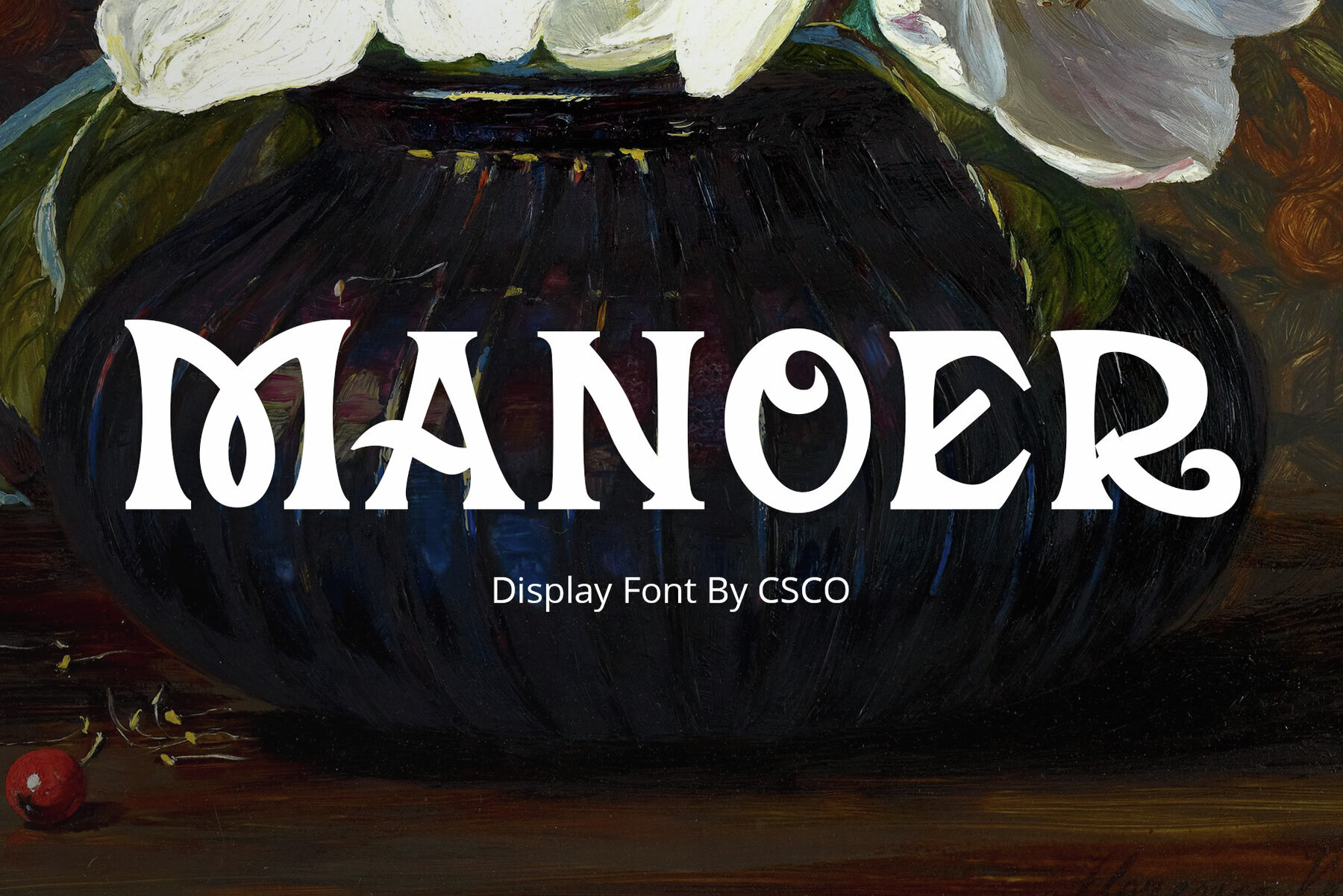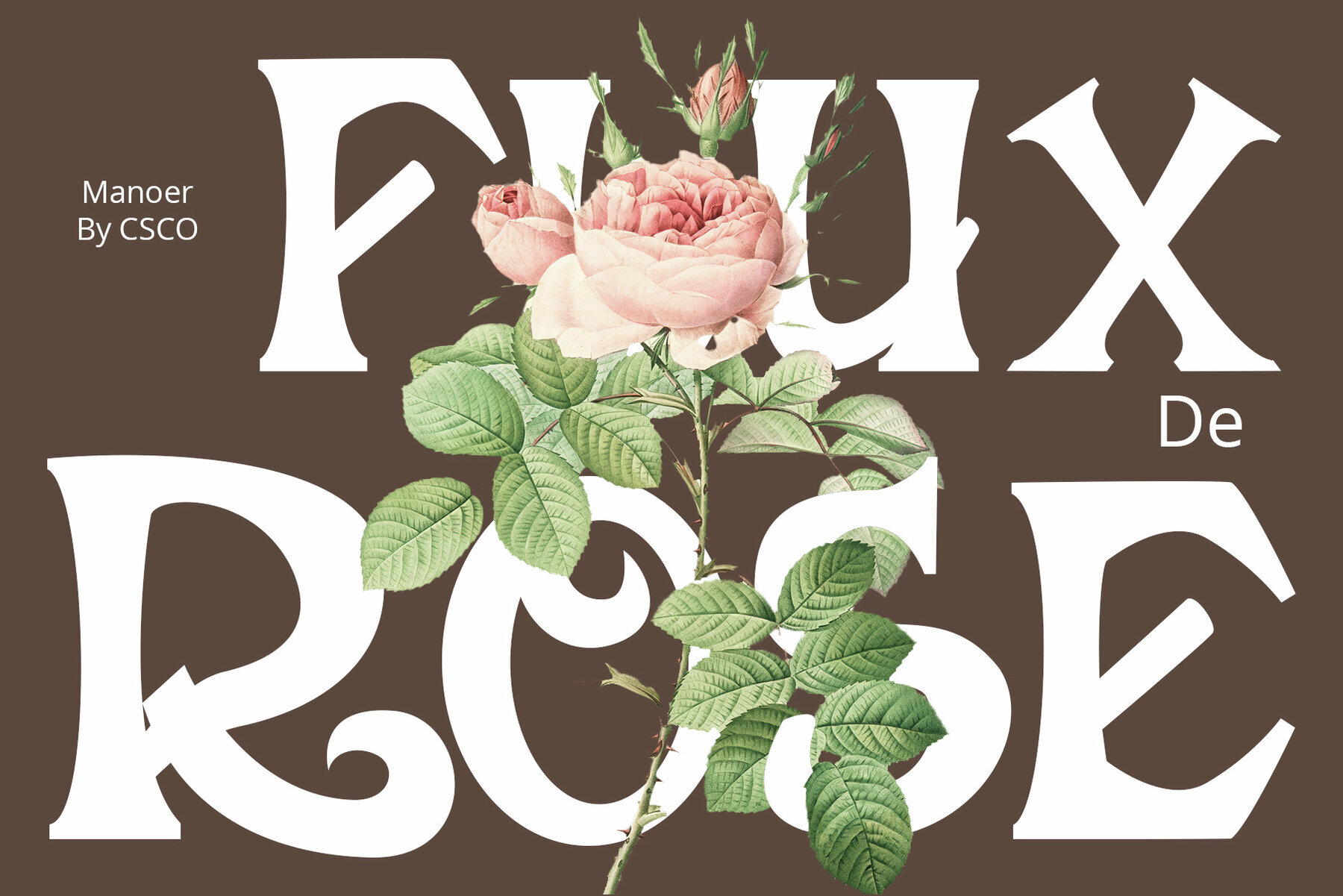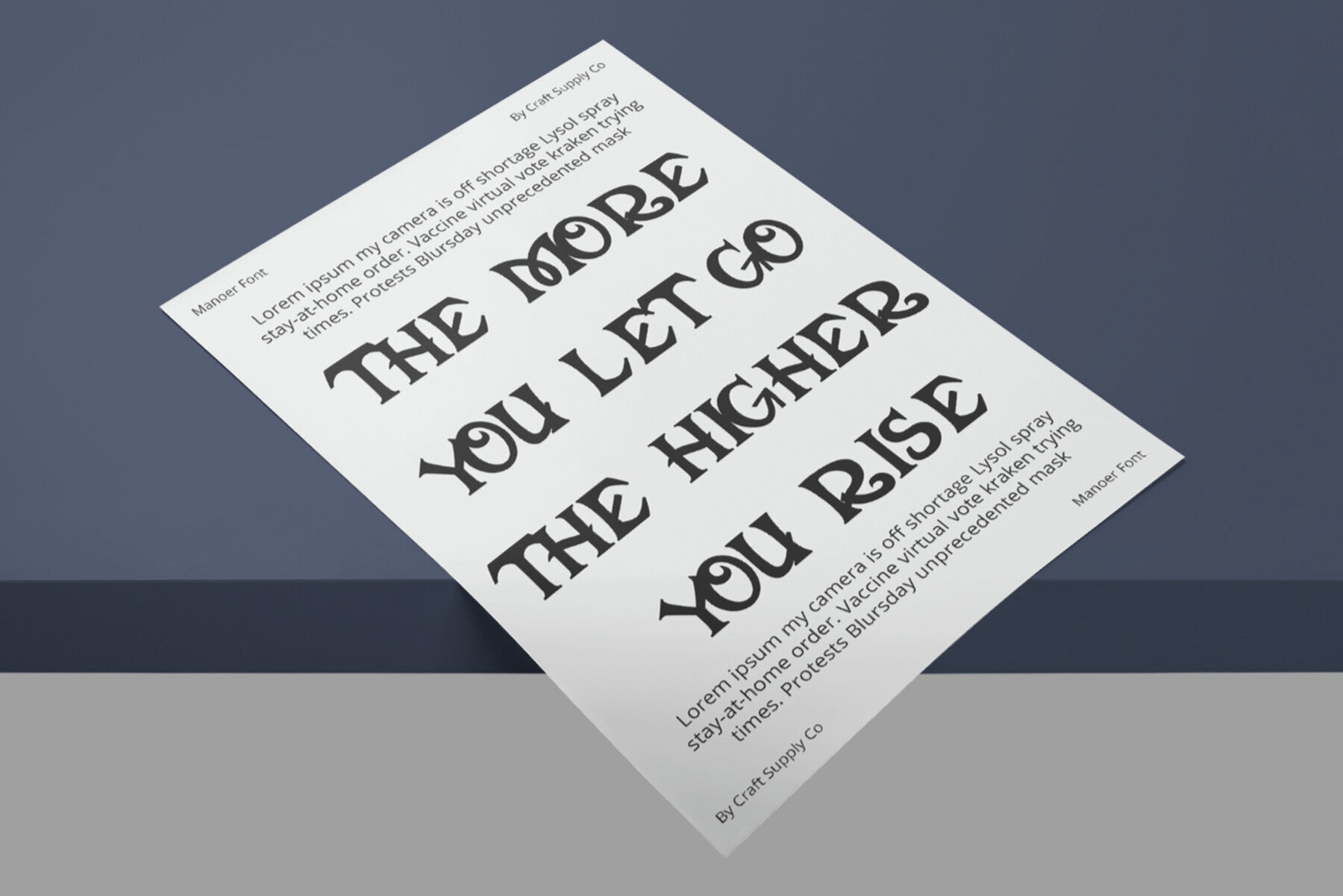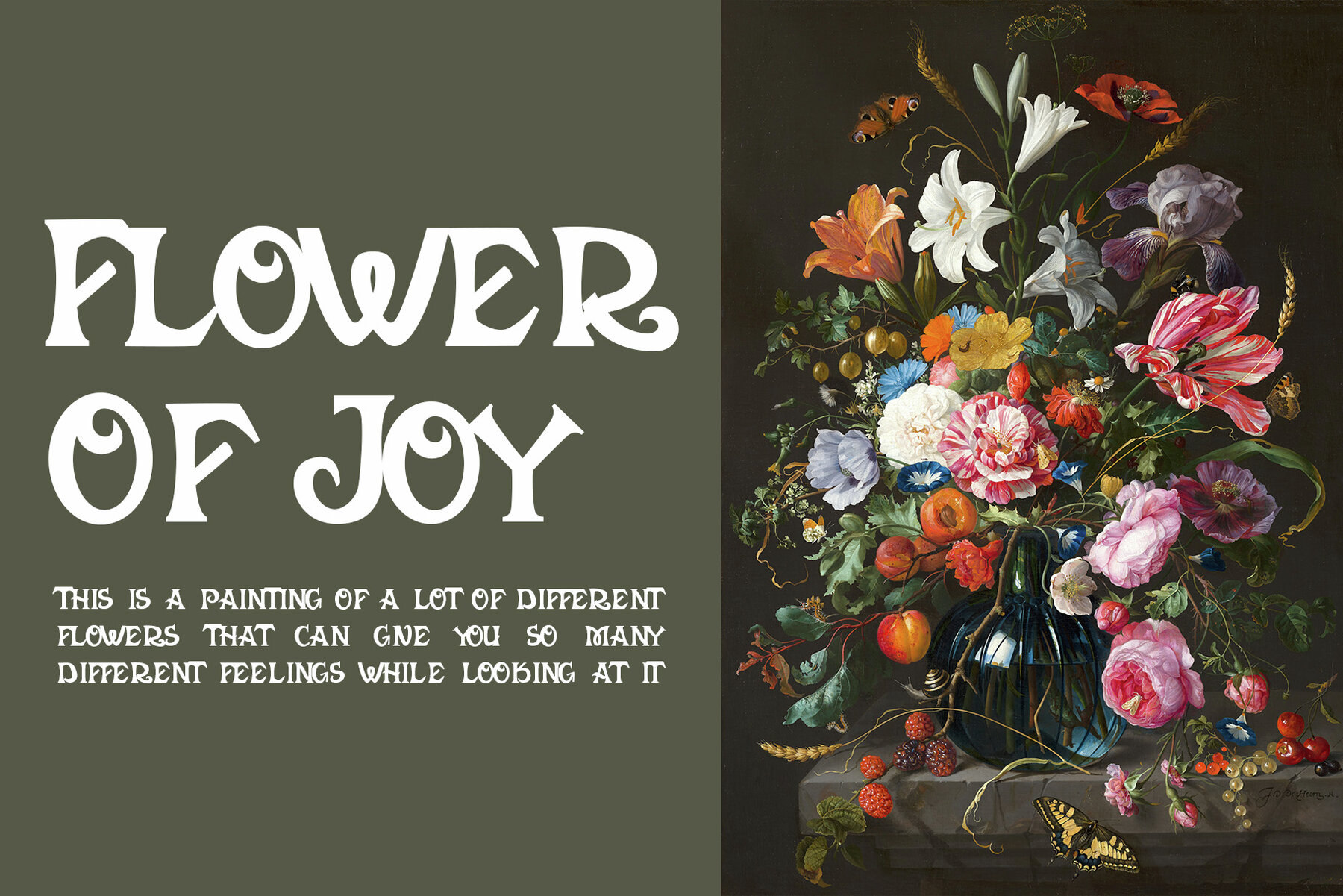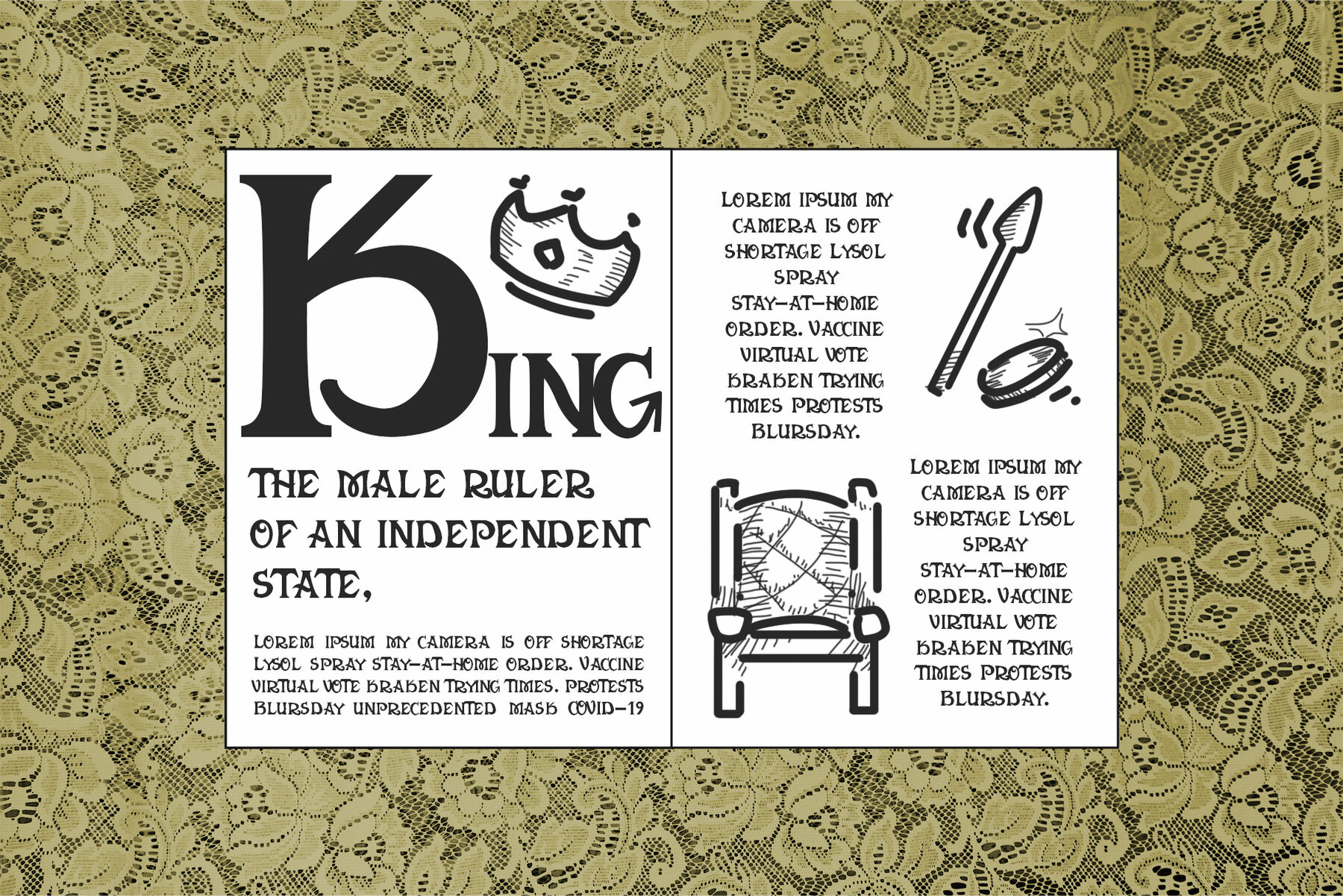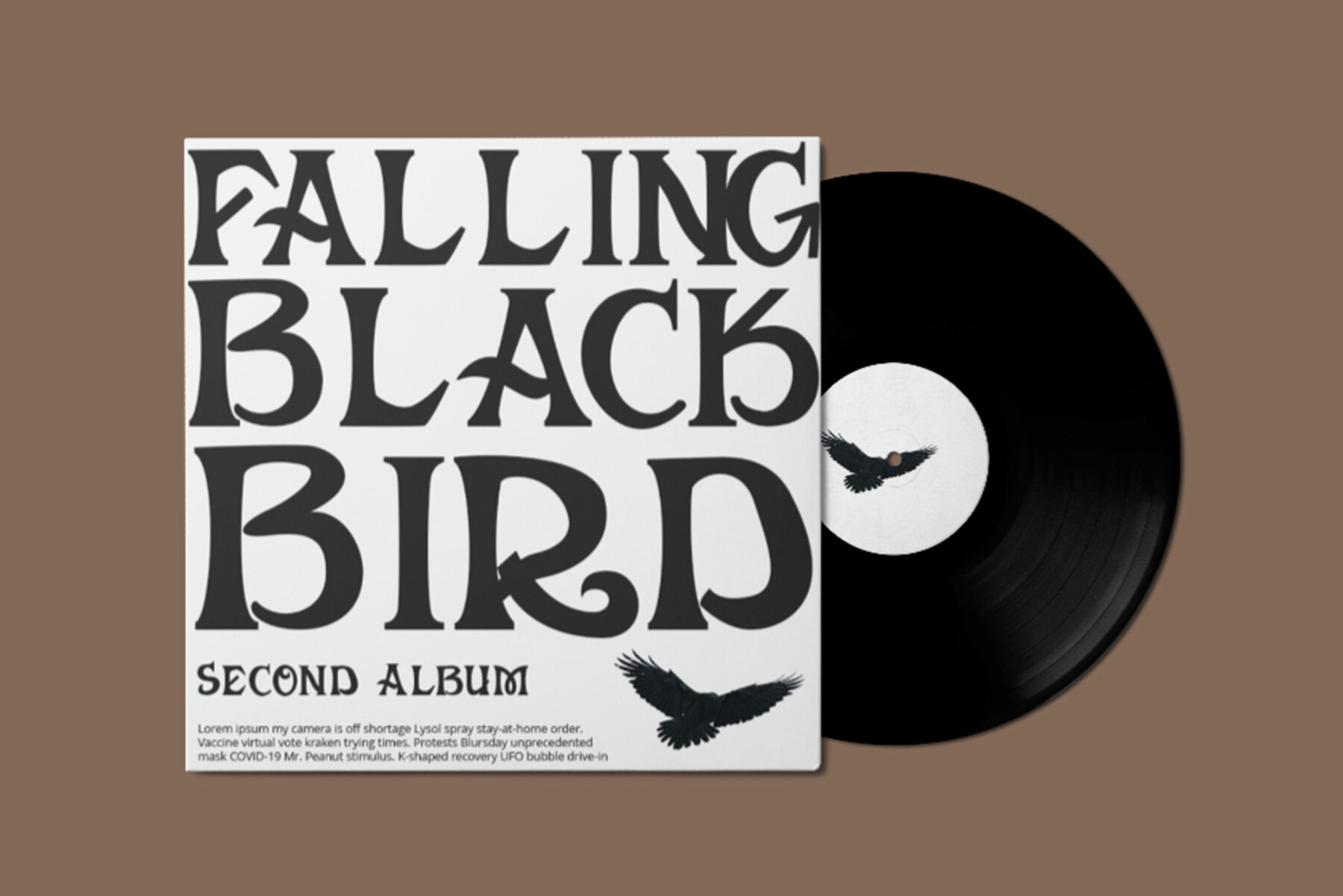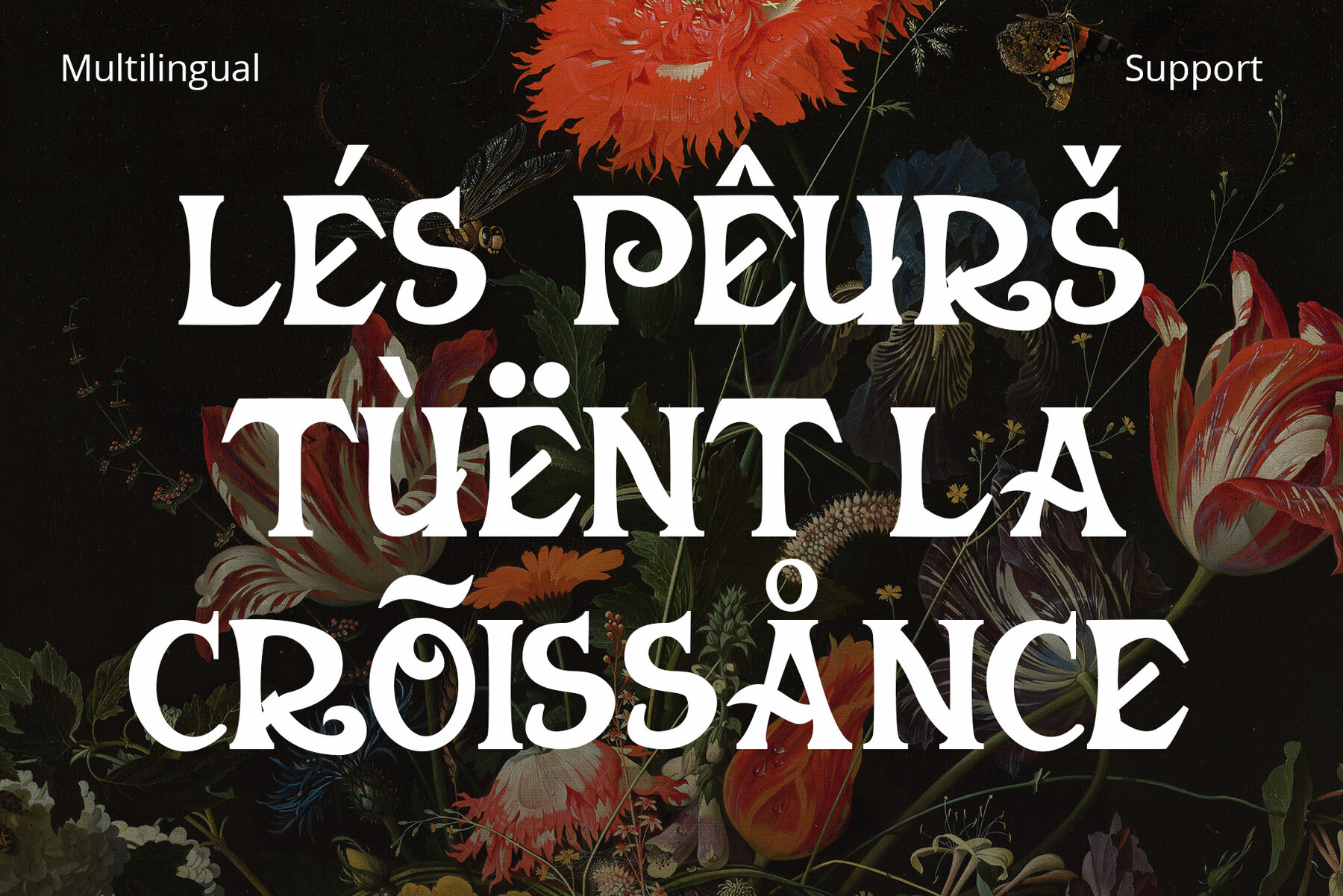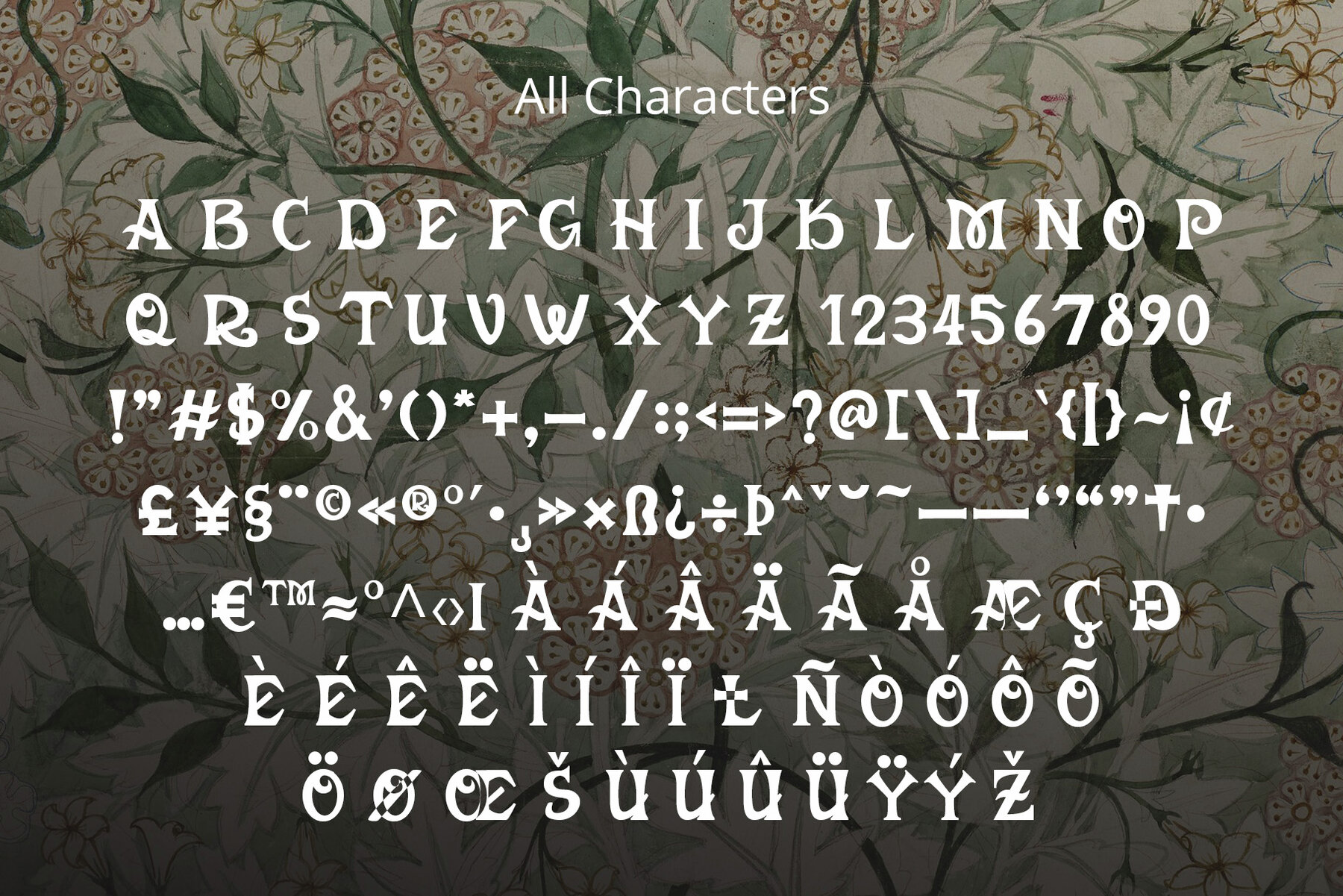
Manoer Font
Manoer Regular
Manoer is a display serif font that combines traditional serif elegance with a funky and fresh design. Ideal for adding a playful charm to any project, this font is perfect for unique, eye-catching displays. Manoer infuses a funky twist into the classic serif, making it ideal for distinctive and vibrant designs. Its playful style adds a unique flavor to any project, ensuring your work stands out. With its unique flair, Manoer is perfect for creative display needs. Whether in advertising, posters, or any bold statement piece, this font captures attention and makes your message unforgettable.Manoer: Display Serif Font with a Funky Twist
Funky and Fresh Design
Ideal for Creative Displays